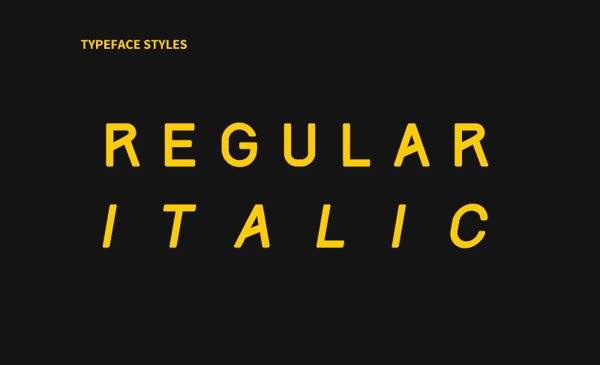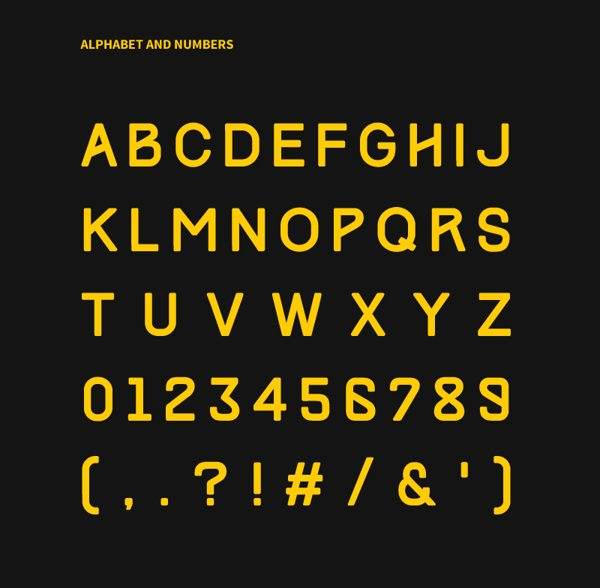
Tracks typeface Font
TracksTypeface Font is all caps fonts inspired with railway tracks slash, static, dynamic, and clean. This fonts available in two different style, Regular and Italic. It was designed for display type such as headlines, poster, title, etc.